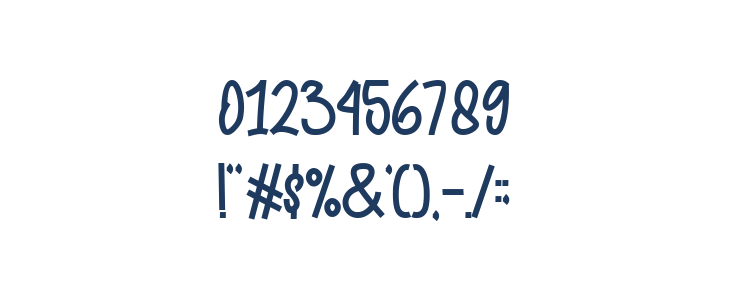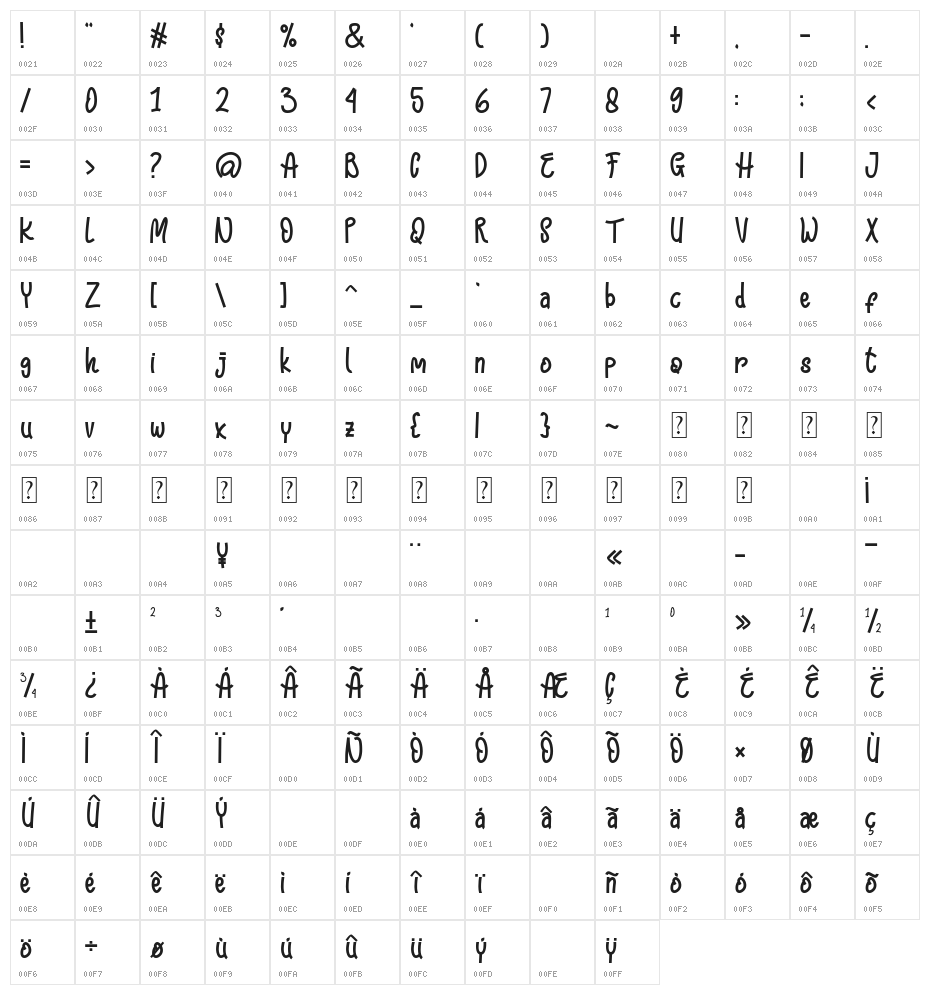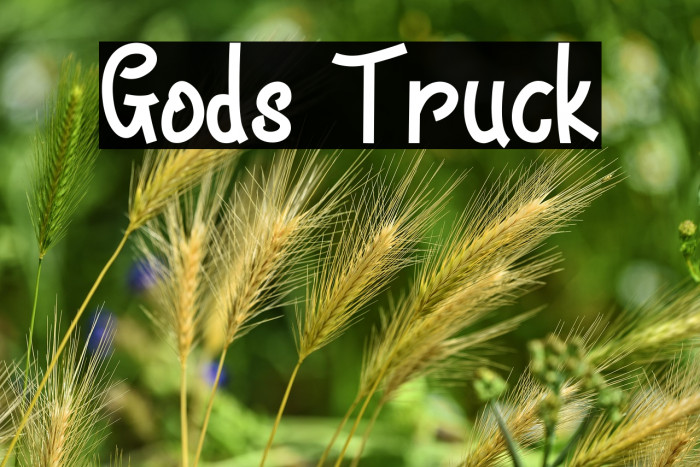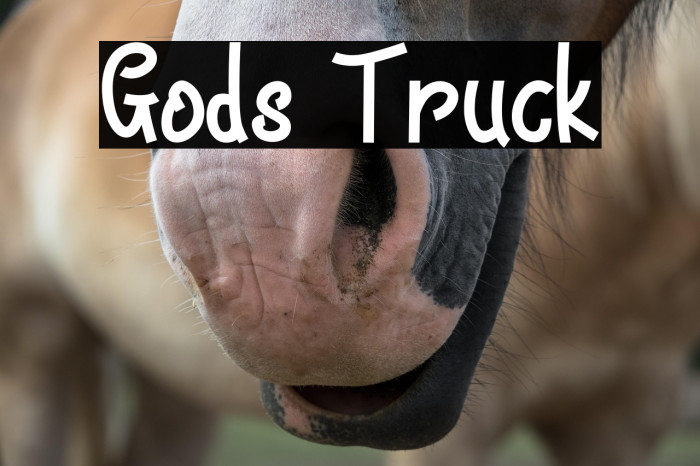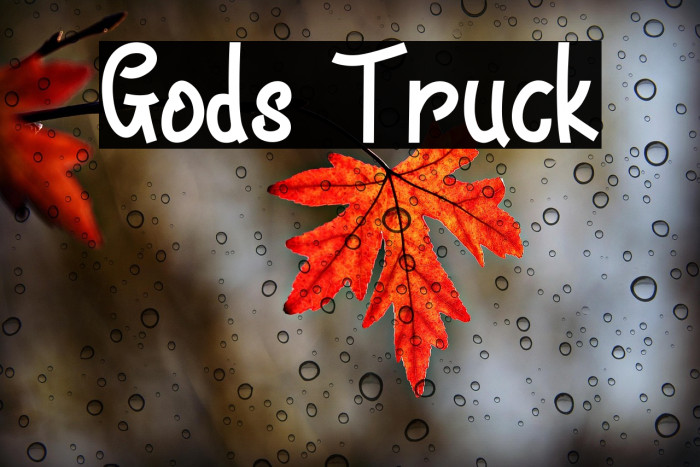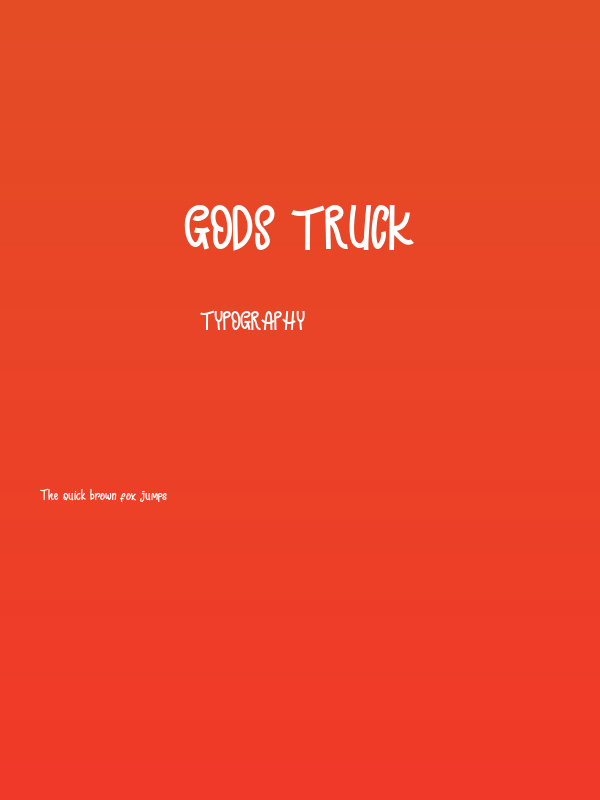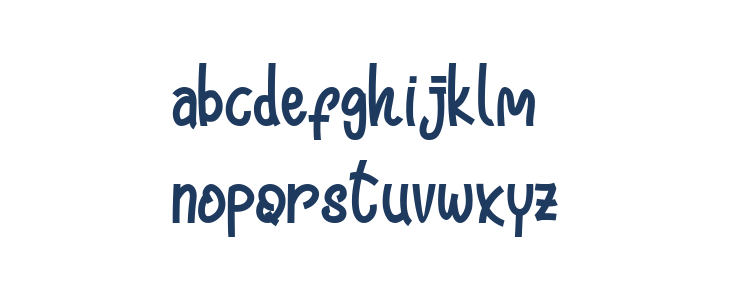
Gods Truck Font
Gods Truck Description
This font features a playful and dynamic style with a handwritten appearance. The letters are bold and slightly irregular, giving a sense of movement and energy. The uppercase letters are tall and narrow, while the lowercase letters maintain a consistent flow with rounded edges. The numbers are bold and match the overall style, ensuring readability. Special characters are included, maintaining the same lively and informal aesthetic. This font is ideal for projects that require a personal touch or a fun, casual vibe.
| Overall Style | Playful, Casual |
| Proposed Projects | Perfect for greeting cards, children's books, playful branding, and social media graphics. |